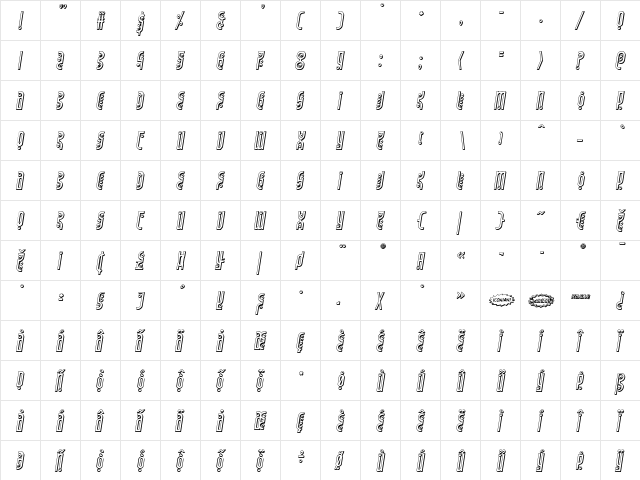
Underground Rose 3D Italic Italic Font Preview
Design Context for Underground Rose 3D Italic Typeface
Underground Rose 3D Italic uses gentle rounded endings to create a warm, inviting typographic personality — less corporate than geometric sans, more refined than playful display fonts. The dynamic lean of this cut emphasises speed and emphasis in any layout.
Well-suited to UI design, mobile interfaces, and any brand that wants approachability without sacrificing clarity.
Font Pairing: Pairs well with a rounded or humanist sans for body copy, maintaining the friendly tone without relying on Underground Rose 3D Italic to carry extended reading.
Pro Tip: Use Underground Rose 3D Italic for UI elements, app interfaces, and anywhere a friendly, approachable tone needs to be maintained without sacrificing clarity.